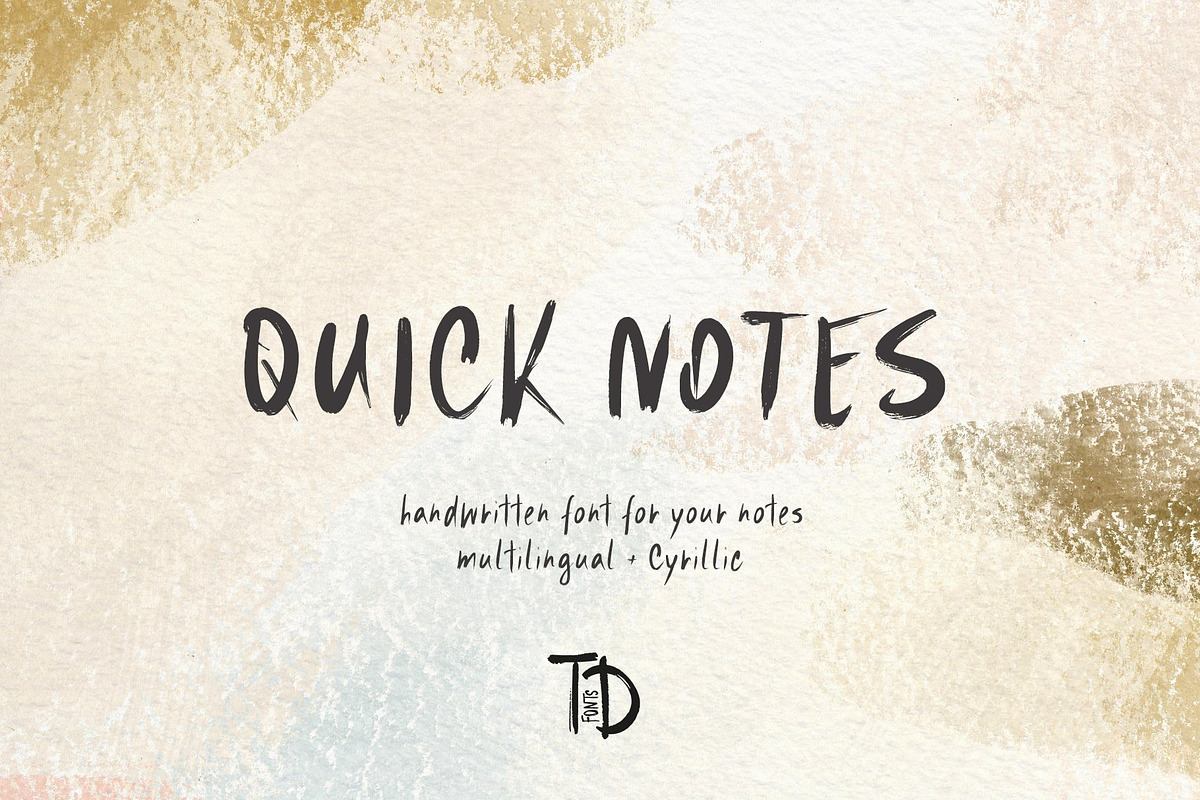
Quick Notes Handwritten Font Free Download is a casual and friendly typeface that mimics the look of natural handwriting. With its slightly messy, personal style, this font is perfect for note-taking apps, planners, journaling projects, lifestyle blogs, and any design that aims to feel warm and approachable.
Whether you're creating digital stickers, social media posts, or branding for a creative startup, Quick Notes Handwritten Font Free Download adds a human touch that brings your message to life. It’s legible, expressive, and works beautifully in both print and screen designs.
This font feels like a quick jot from a friend—relaxed, real, and refreshingly authentic. Try it out for personal or demo projects to see how it fits your creative needs. Just remember, a commercial license is required for professional use. Add a dose of personality to your designs with Quick Notes!